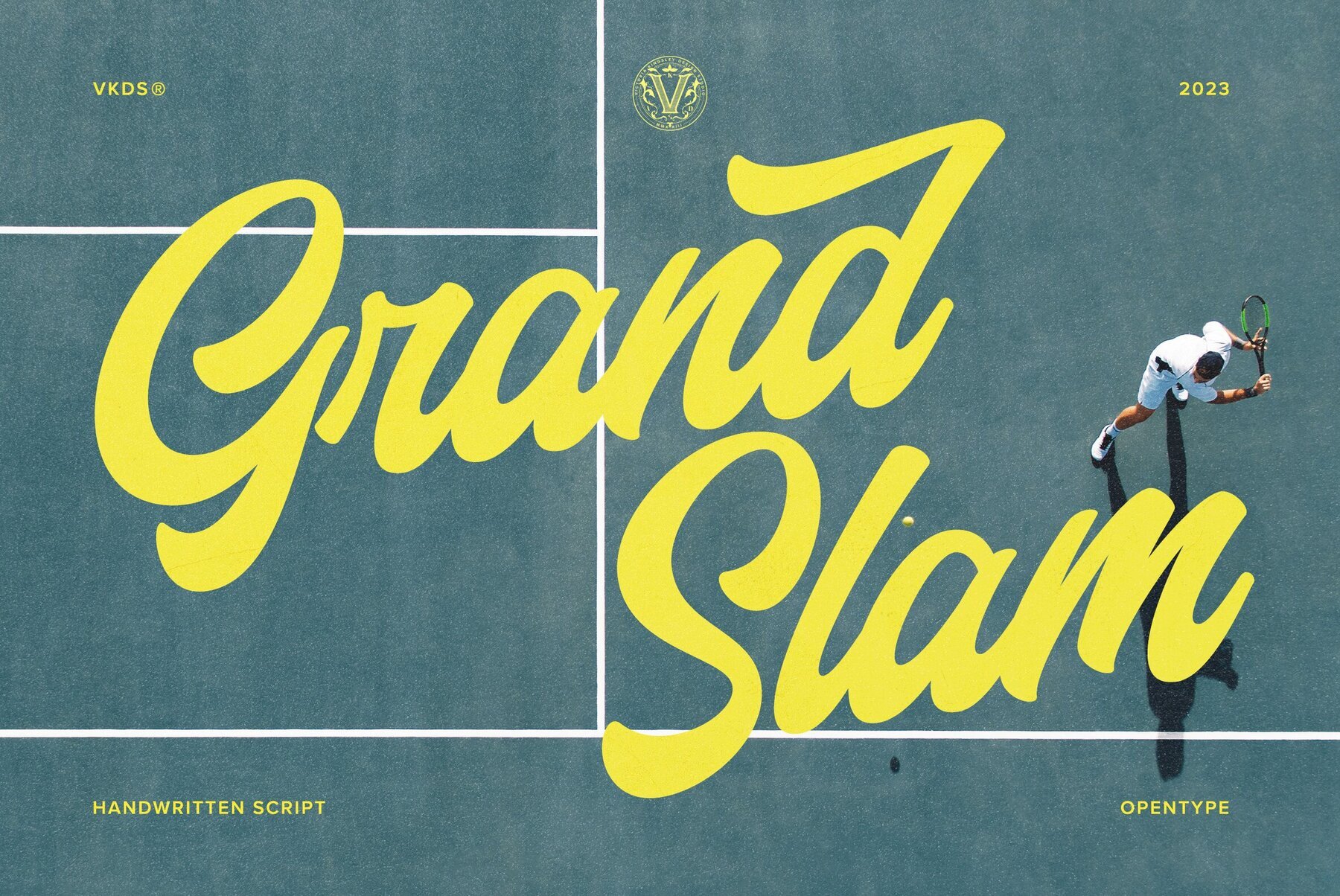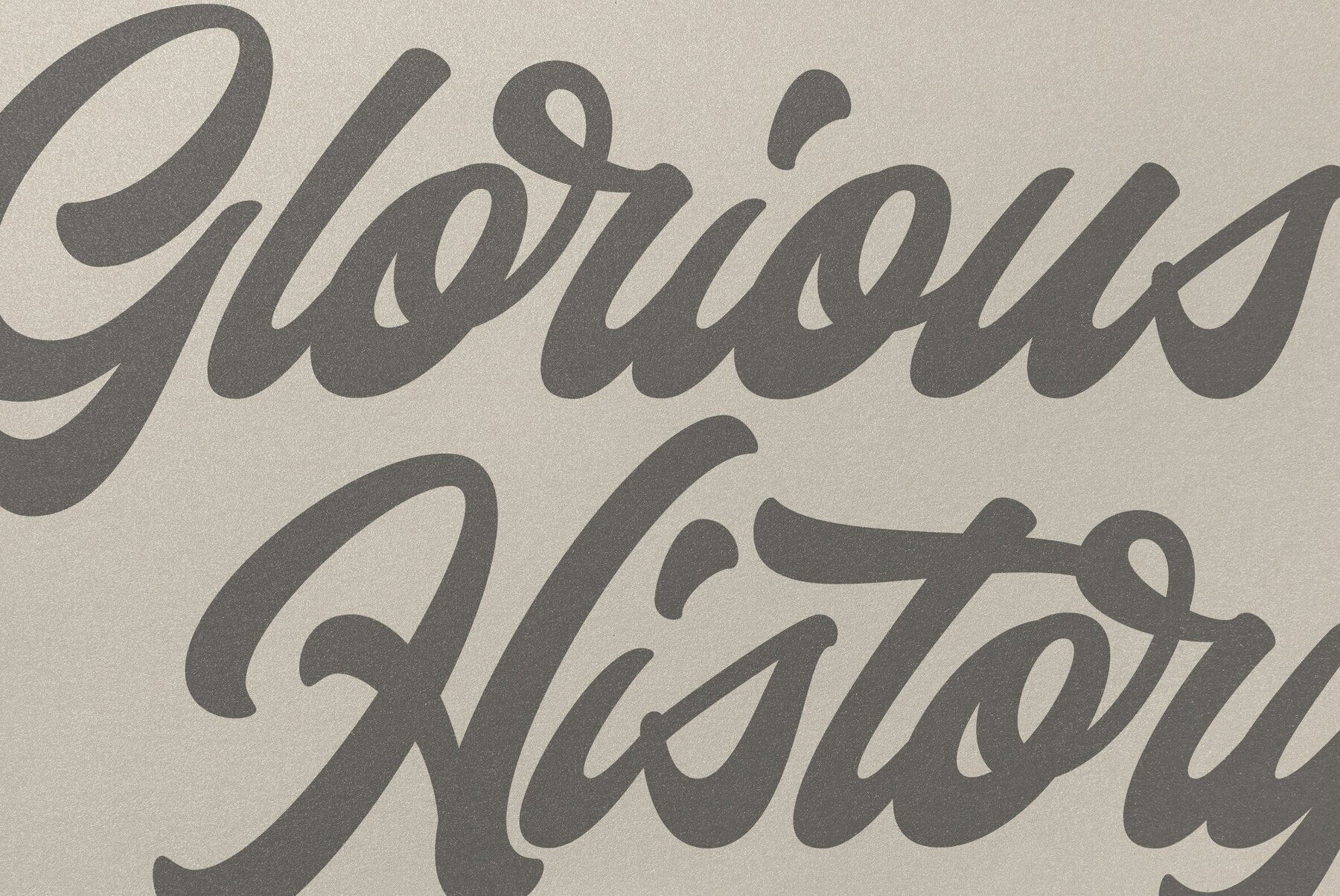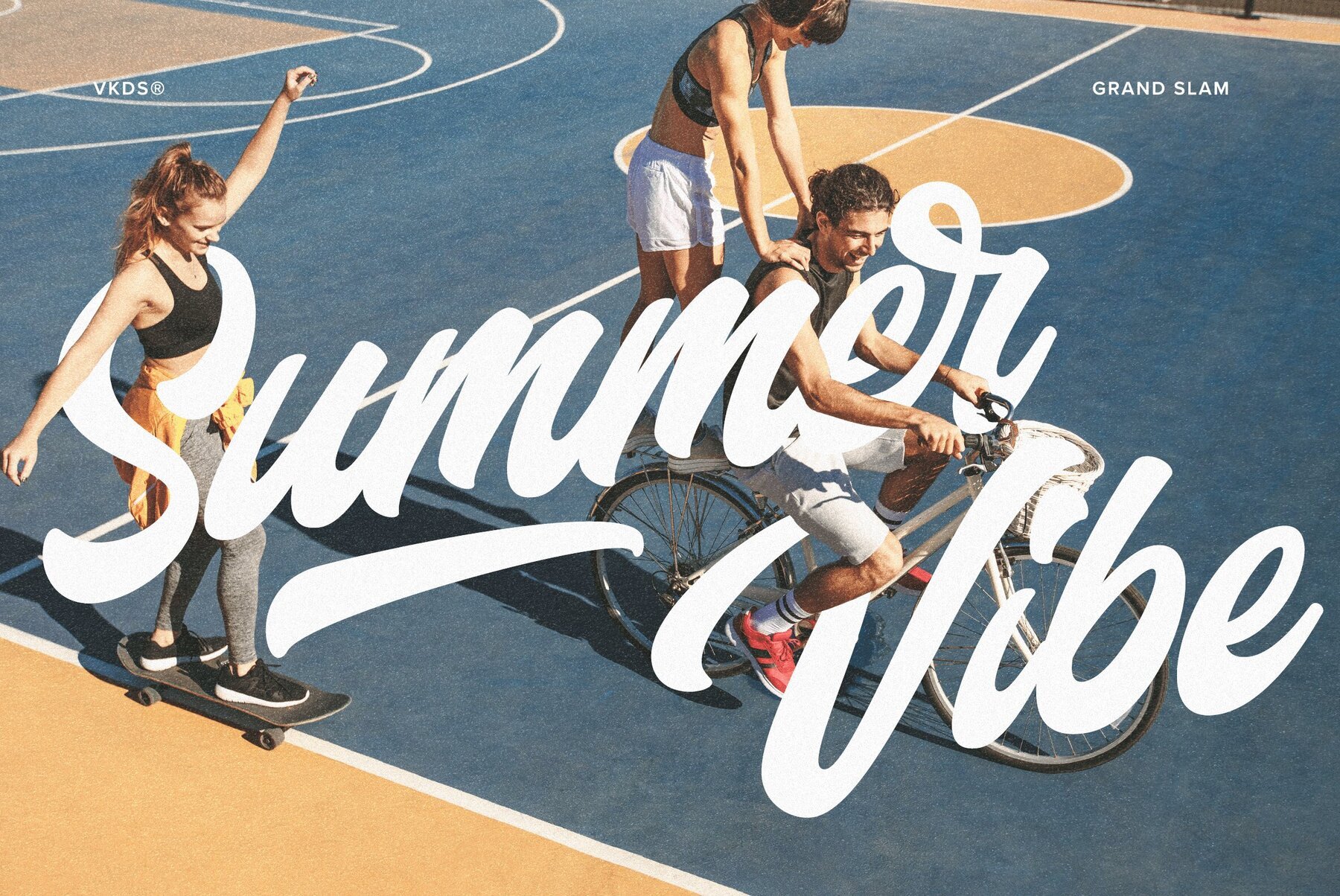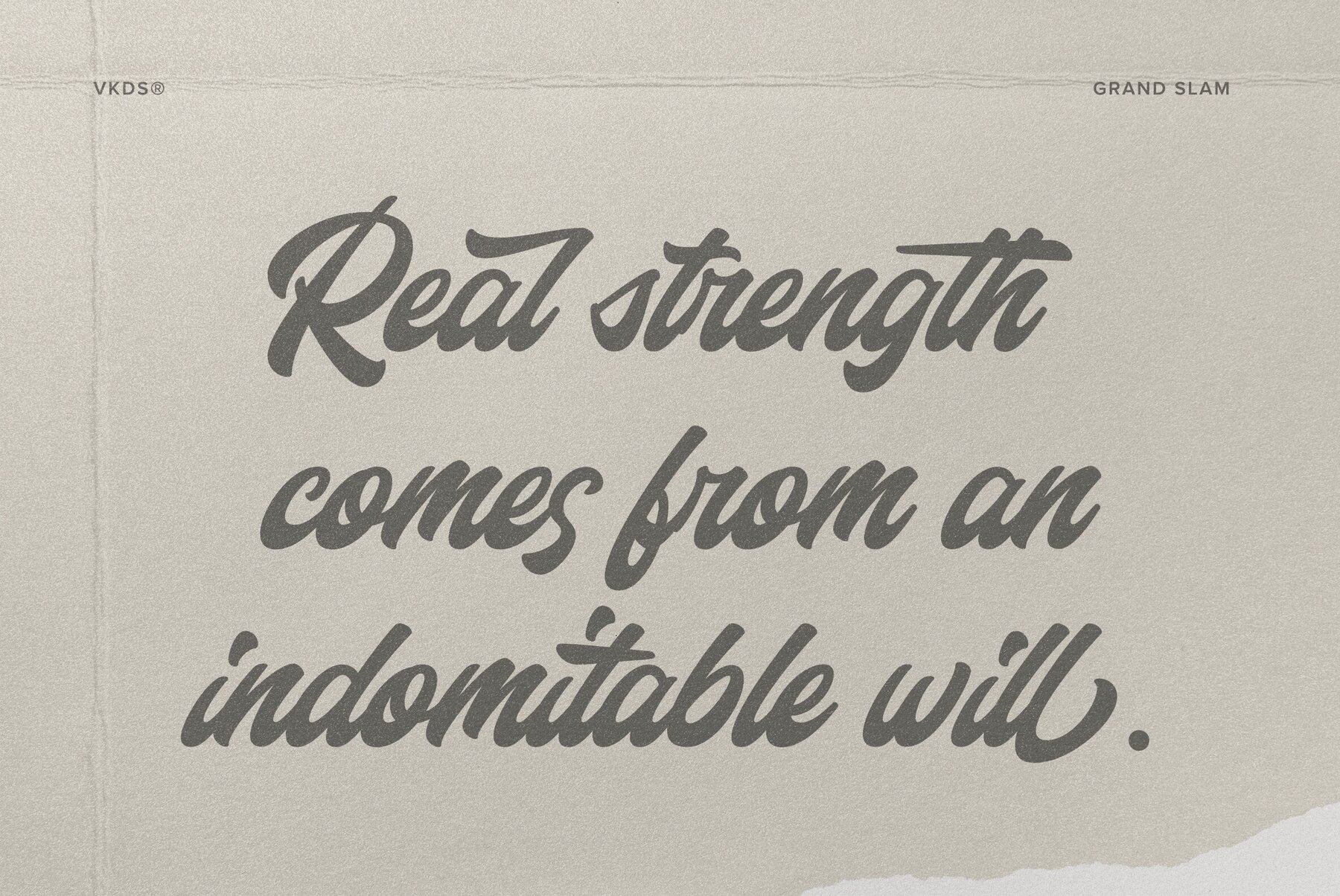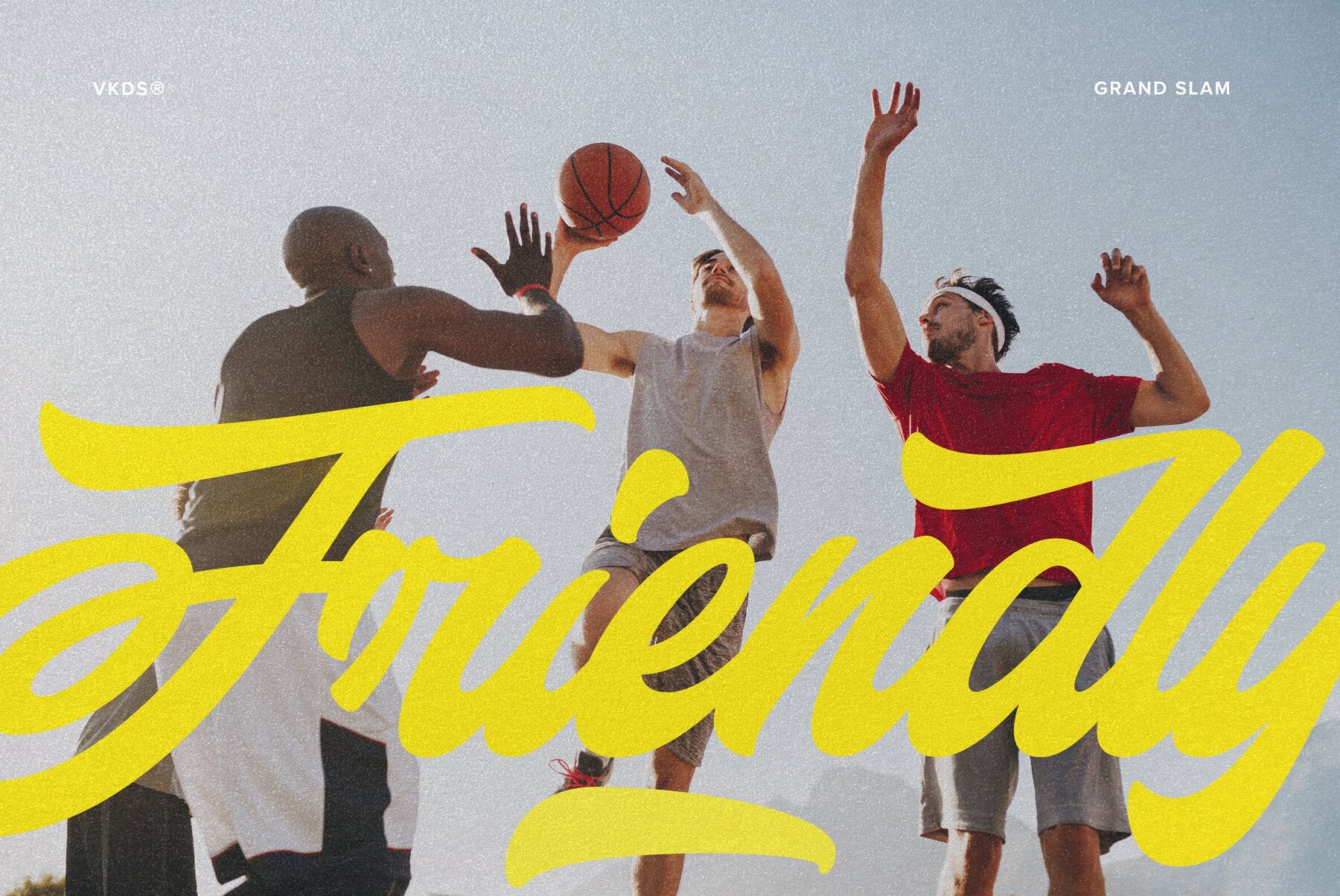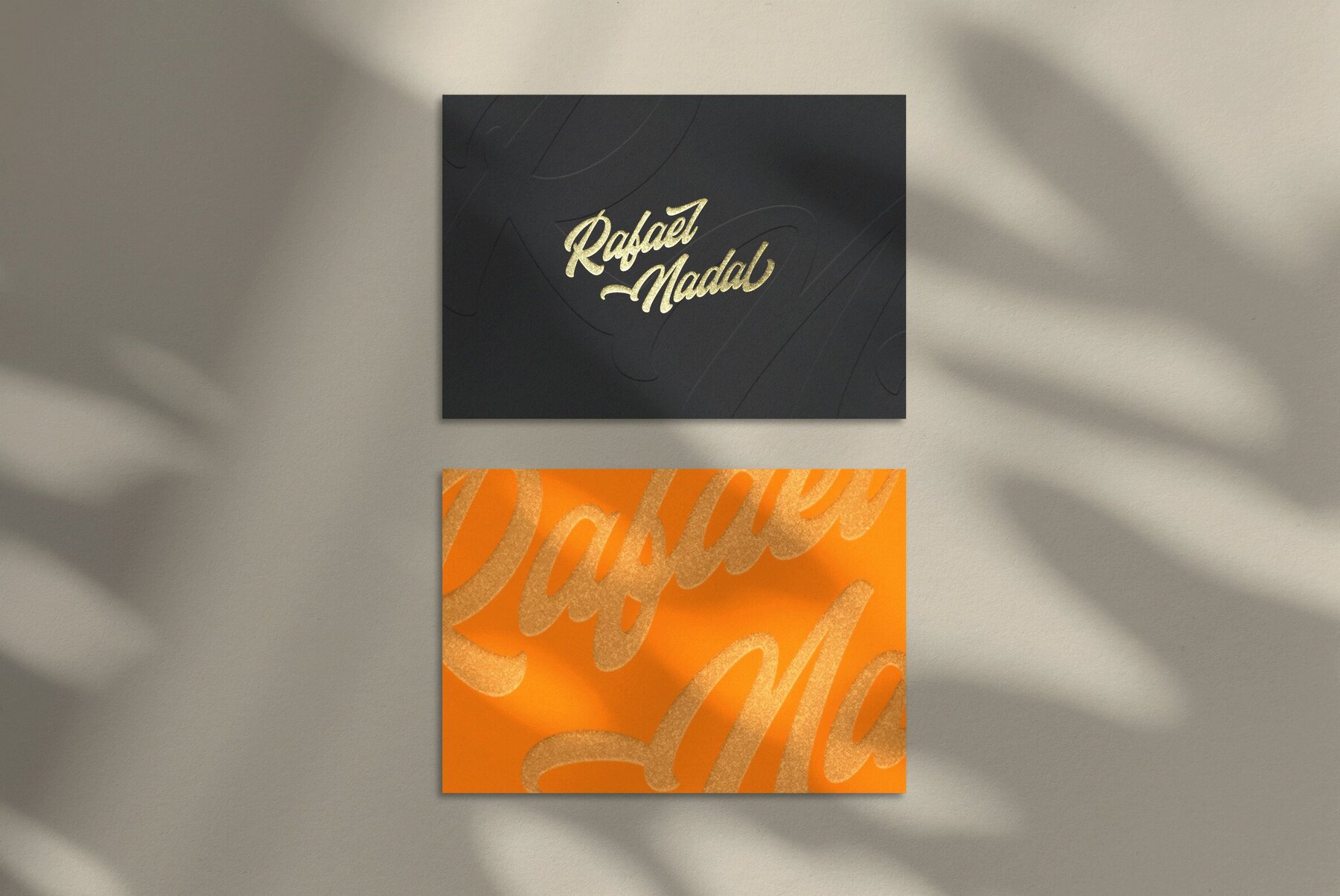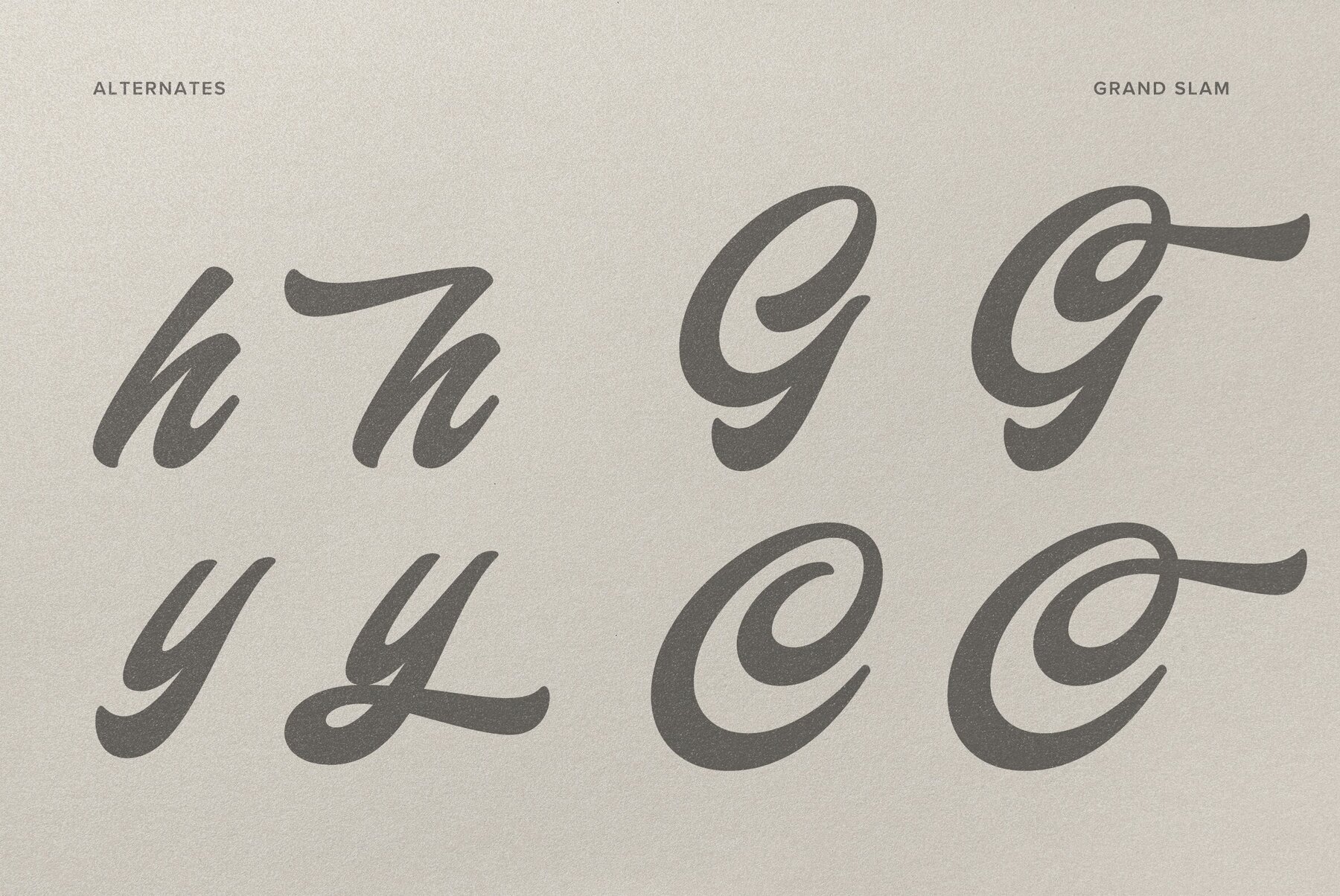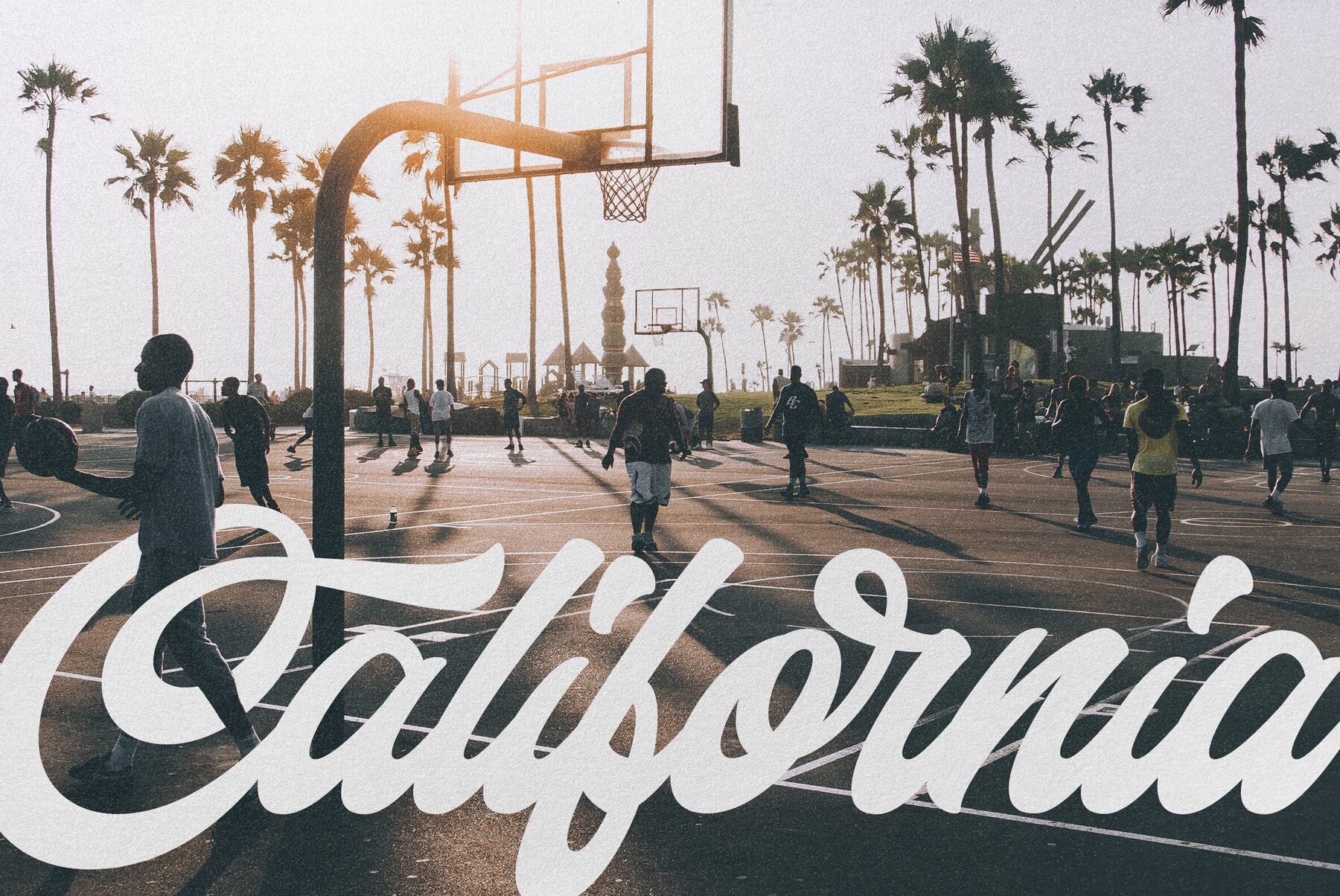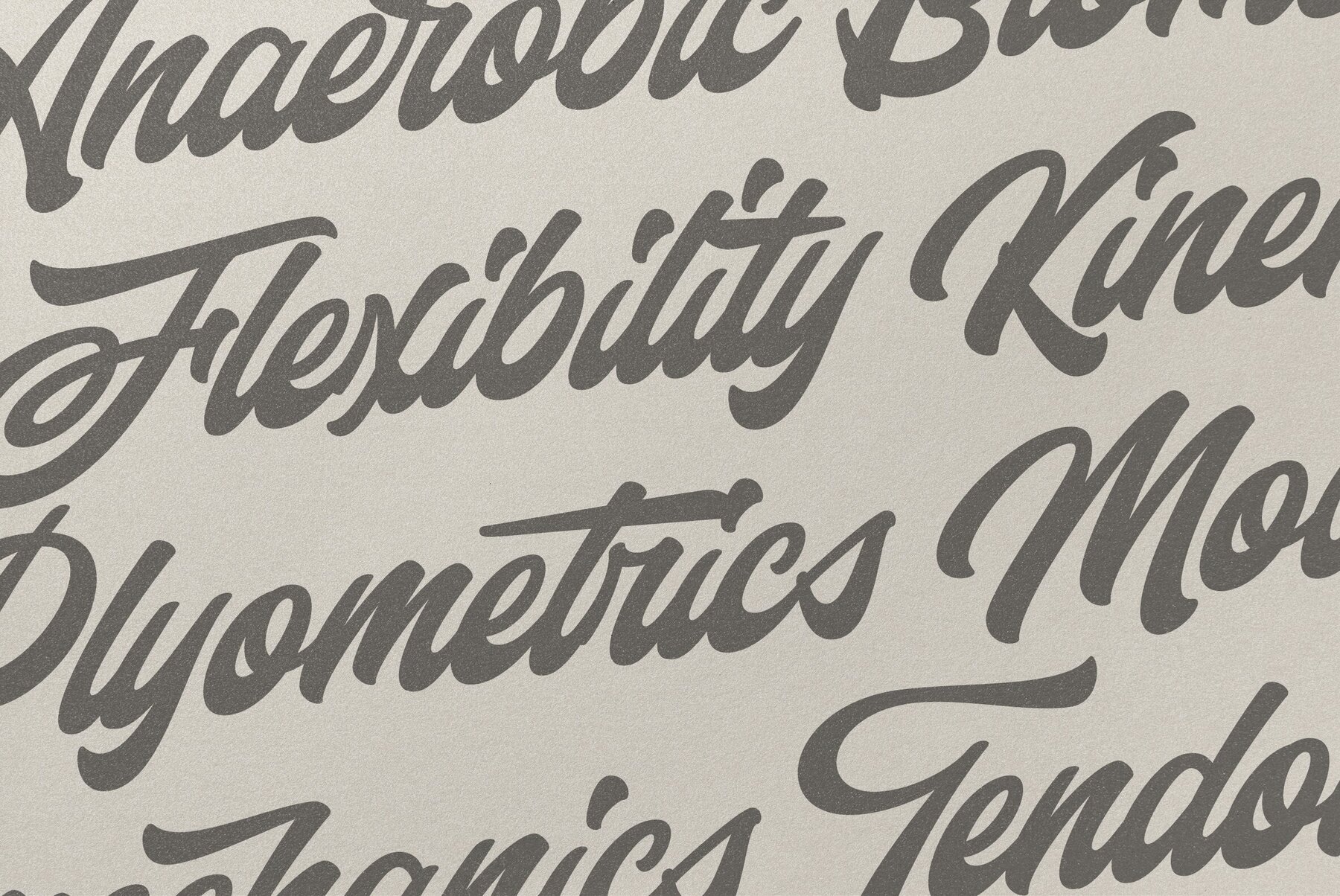
Grand Slam Font
Meet "Grand Slam," a retro-style font that resonates with the charm of yesteryear's athletic designs. This versatile typeface is perfect for holiday-themed projects, eye-catching t-shirt graphics, and much more. With over 500 glyphs and a bonus swash style for enhancing your headline settings, Grand Slam offers endless creative possibilities. Designed to excel in social media marketing and YouTube projects, this font could also be the perfect choice for a Netflix TV show branding. Seize the opportunity to make your designs stand out with this YouWorkForThem exclusive, available only here. Add "Grand Slam" to your collection today and boost your projects with its distinctive and captivating allure.